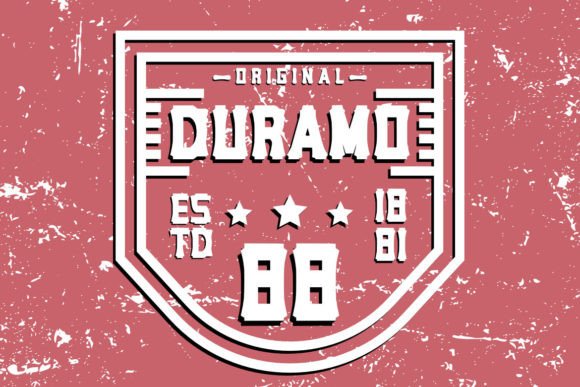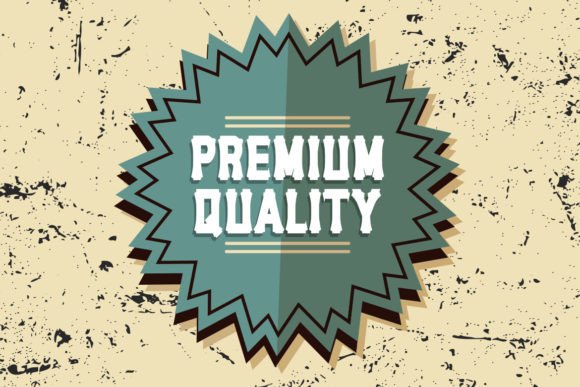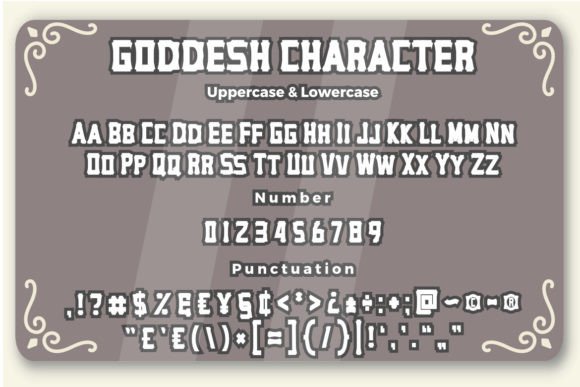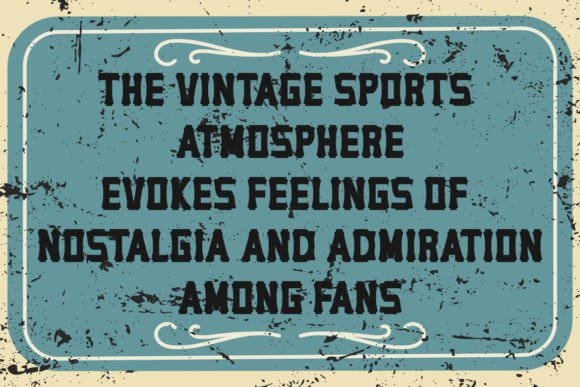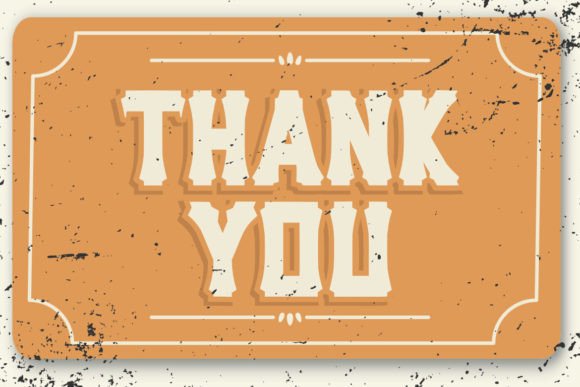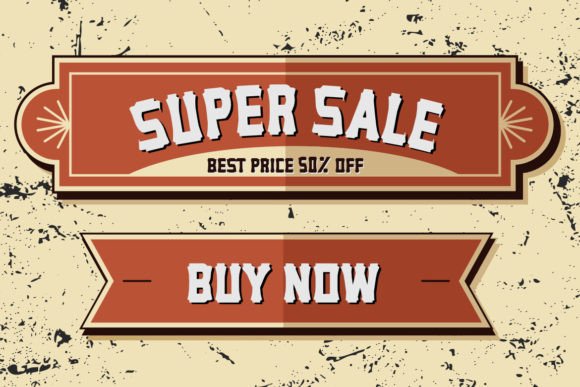
The Retro Revival: Unleashing the Power of Goddesh Font
I’ll never forget the time I was working on a vintage-inspired sports poster project, and I just couldn’t find the right font to bring it all together. My client wanted that classic, old-school look that screams “retro athletic,” but my font library was coming up empty. That’s when I stumbled upon Goddesh Font, and let me tell you, it was love at first sight! 💕
Goddesh is a vintage sports font that brings a retro athletic feel to your designs. Its bold, blocky letters make it perfect for sports team logos, jerseys, posters, and other projects where you want a classic, old-school look. With a strong and dynamic style, Goddesh adds energy and nostalgia to any text.
What I Love About Goddesh Font ✨
- ✅ Retro athletic vibe: Goddesh Font nails that classic sports look that’s perfect for vintage-inspired designs.
- ✅ Bold and dynamic: The font’s bold, blocky letters are attention-grabbing and full of energy.
- ✅ Versatile: Goddesh works well for various design projects, from sports team logos to posters and jerseys.
- ✅ Easy to read: Despite its bold style, Goddesh remains surprisingly legible, even at smaller font sizes.
- ⚠️ Limited OpenType features: Goddesh Font doesn’t offer a wide range of OpenType features, which might limit its use in certain design projects.
- ⚠️ No condensed or expanded styles: The font only comes in one style, which might not be ideal for designers who need more flexibility.
The Story Behind Goddesh Font
Goddesh Font was designed by a team of typographers who wanted to create a font that captured the spirit of vintage sports design. Inspired by classic athletic typography from the 1920s to the 1950s, Goddesh Font brings a retro athletic feel to modern designs.
Q: What is Goddesh Font?
A: Goddesh Font is a vintage sports font designed to bring a retro athletic feel to your designs.
Q: What can I use Goddesh Font for?
A: Goddesh Font is perfect for sports team logos, jerseys, posters, and other design projects where you want a classic, old-school look.
Q: Is Goddesh Font easy to read?
A: Yes, despite its bold style, Goddesh Font remains surprisingly legible, even at smaller font sizes.
Q: Does Goddesh Font support OpenType features?
A: Yes, Goddesh Font supports OpenType features, including stylistic alternates and glyphs.